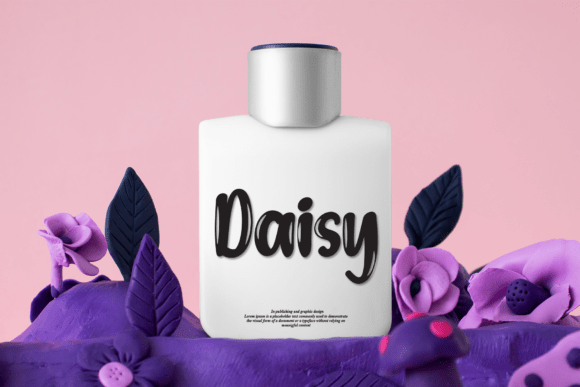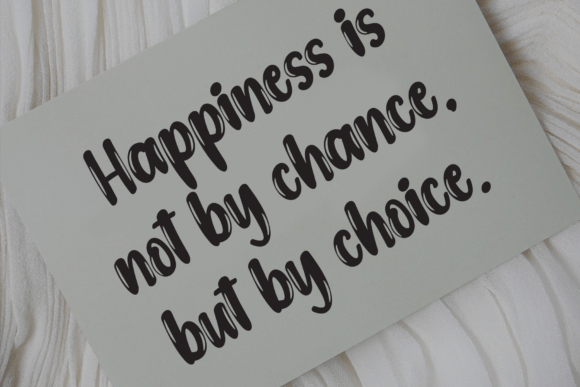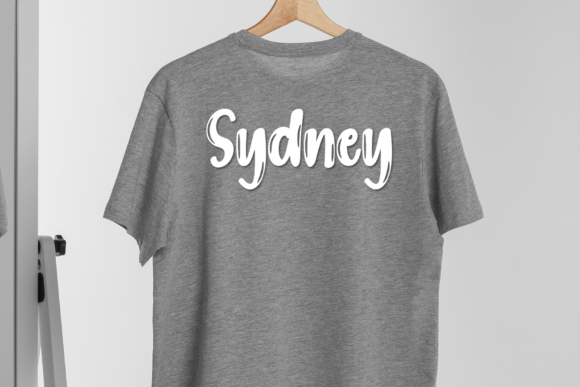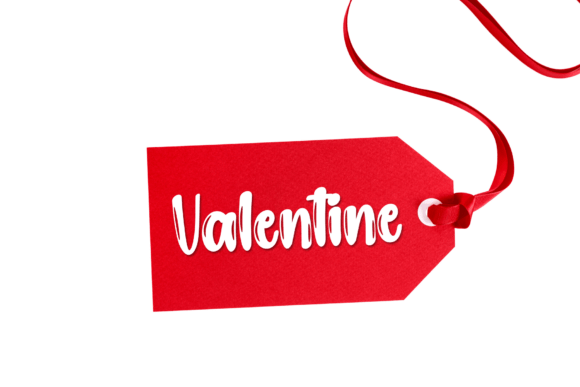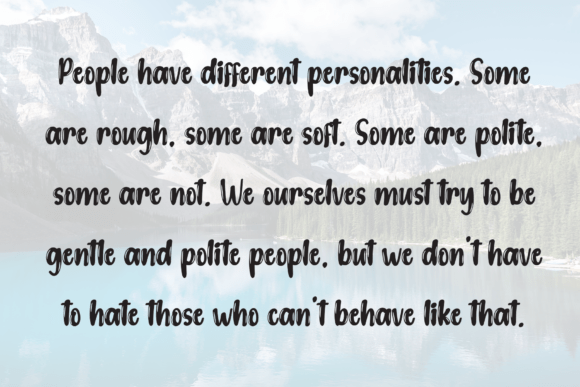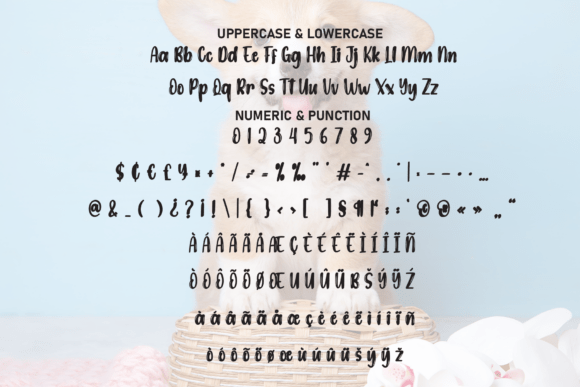
Cute Puppy Font: The Perfect Blend of Simplicity and Friendliness
Are you a designer or crafter looking for a font that can add a warm and inviting touch to your designs? Look no further than the Cute Puppy font! This casual and neat display font combines simplicity with a friendly, approachable vibe, making it perfect for a wide range of design projects.
What Makes Cute Puppy Font So Special?
Cute Puppy font features clean lines, balanced letterforms, and subtle rounded edges that capture the essence of modern handwritten typography with a polished finish. The font’s design is characterized by its:
- Clean lines: The font’s lines are crisp and clear, making it easy to read and understand.
- Balanced letterforms: The letters are carefully crafted to ensure that each one is balanced and visually appealing.
- Subtle rounded edges: The rounded edges give the font a friendly and approachable feel, making it perfect for designs that require a personal touch.
Cute Puppy font is ideal for a variety of design projects, including:
- Branding: Use the font to create a logo or brand identity that is both modern and approachable.
- Headlines: The font’s clean lines and balanced letterforms make it perfect for headlines that need to grab attention.
- Packaging: Add a warm and inviting touch to your packaging designs with the Cute Puppy font.
- Digital content: The font is also perfect for digital content, such as blog posts, social media graphics, and website headers.
Why Choose Cute Puppy Font?
There are many reasons why designers and crafters should choose the Cute Puppy font for their projects. Here are just a few:
- Versatility: The font’s versatile style makes it suitable for a wide range of design projects.
- Clarity: The font’s crisp structure ensures that your designs are clear and easy to read.
- Charm: The font’s friendly and approachable vibe adds a touch of charm to any design.
Tips for Using Cute Puppy Font
Here are a few tips for using the Cute Puppy font in your designs:
- Use it for headlines: The font is perfect for headlines that need to grab attention.
- Pair it with other fonts: The font pairs well with other fonts, so feel free to experiment with different combinations.
- Use it for body text: The font is also suitable for body text, especially for designs that require a friendly and approachable tone.
In conclusion, the Cute Puppy font is a versatile and charming font that is perfect for designers and crafters looking to add a warm and inviting touch to their designs. With its clean lines, balanced letterforms, and subtle rounded edges, it captures the essence of modern handwritten typography with a polished finish. Whether you’re working on a branding project, creating headlines, or designing packaging, the Cute Puppy font is sure to deliver clarity and charm in equal measure.